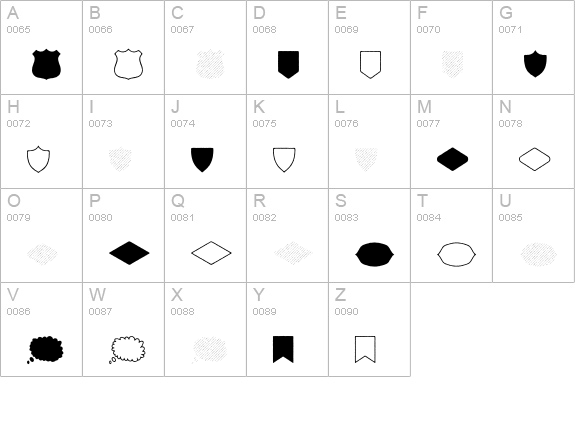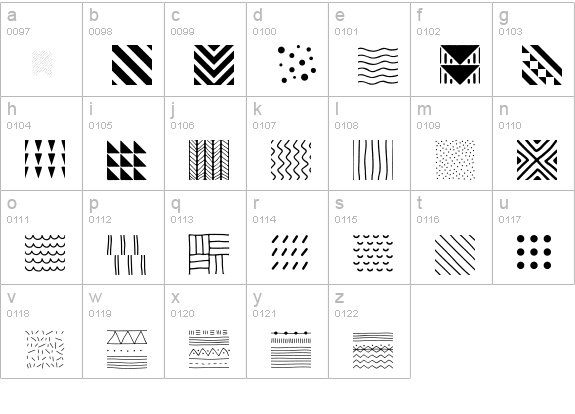
Intro Goodies Patterns & Shapes Font Details
Introducing the captivating Intro Goodies Patterns & Shapes font, a unique and versatile typeface that is sure to make your designs stand out. This exquisite font features a delightful blend of patterns and shapes, adding a touch of creativity and flair to any project. With its eye-catching design and playful aesthetic, Intro Goodies Patterns & Shapes font is perfect for a wide range of applications, from branding to social media graphics, posters, and more. Its charming patterns and shapes will bring a fresh and modern look to your work, making it truly one-of-a-kind. Best of all, Intro Goodies Patterns & Shapes font is available for free download at FontsMarket.com. So don't wait any longer – add this delightful font to your collection today and start creating stunning designs that will leave a lasting impression.